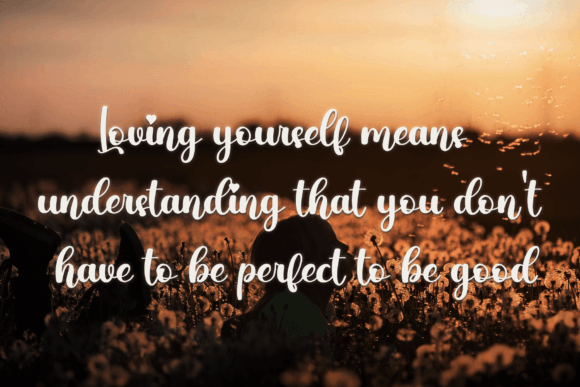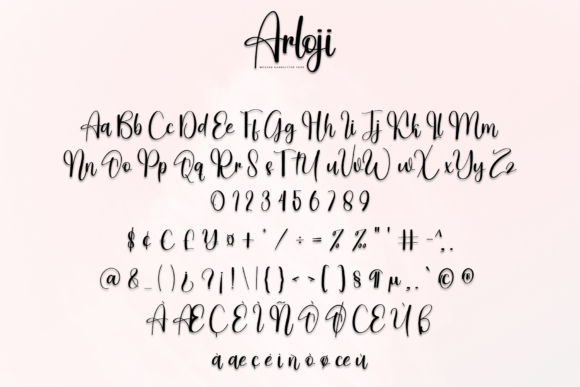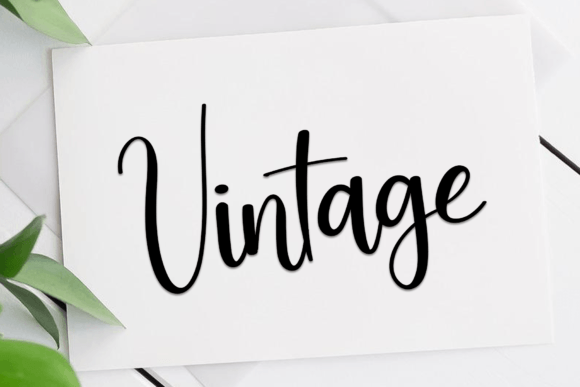
The Arloji Font: A Unique, Round Lettered Handwritten Font for Creative Projects
I’ll never forget the design moment when I stumbled upon the Arloji font. I was working on a project for a client who needed a custom invitation for a wedding, and I was struggling to find the perfect font. The client wanted something elegant, yet playful, and I was determined to deliver. That’s when I discovered Arloji, a unique, round lettered handwritten font that exceeded my expectations.
A Personal Review of Arloji
What I Love About Arloji ✨
• 💕 The font’s unique, rounded letterforms add a touch of playfulness to any design project.
• ✅ The font is highly legible, even at small sizes, making it perfect for body text or captions.
• 🎨 The font’s versatility allows it to be used for a wide range of projects, from titles and invitations to letters and more.
• 👍 The font’s clean and simple design makes it easy to pair with other fonts and design elements.
While Arloji is an excellent font, there are a few quirks to be aware of:
• 🤔 Some users may find the font’s rounded edges to be slightly inconsistent, which can be noticeable when used at large sizes.
• ⚠️ The font may not be suitable for very formal or traditional designs, as it has a distinctly playful and modern feel.
The Story Behind Arloji
Arloji was designed by a talented typographer who wanted to create a unique and versatile font that would inspire creative projects. The font’s rounded edges and playful feel make it perfect for designers, crafters, and creative hobbyists who want to add a touch of personality to their work.
Q: What is Arloji font?
A: Arloji is a unique, round lettered handwritten font that was carefully crafted to produce the desired results.
Q: What can I use Arloji font for?
A: Arloji font can be used to write titles, invitations, letters, and many other types of products.
Q: Is Arloji font easy to read?
A: Yes, Arloji font is highly legible, even at small sizes, making it perfect for body text or captions.